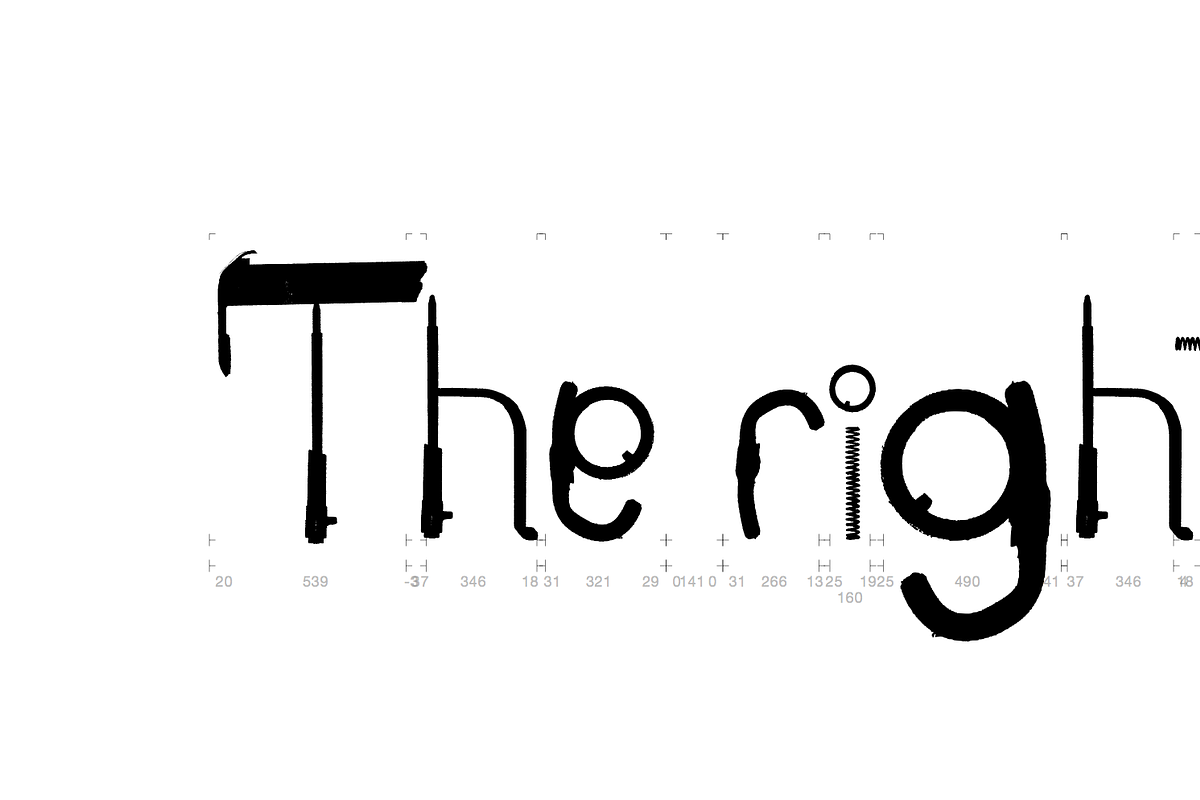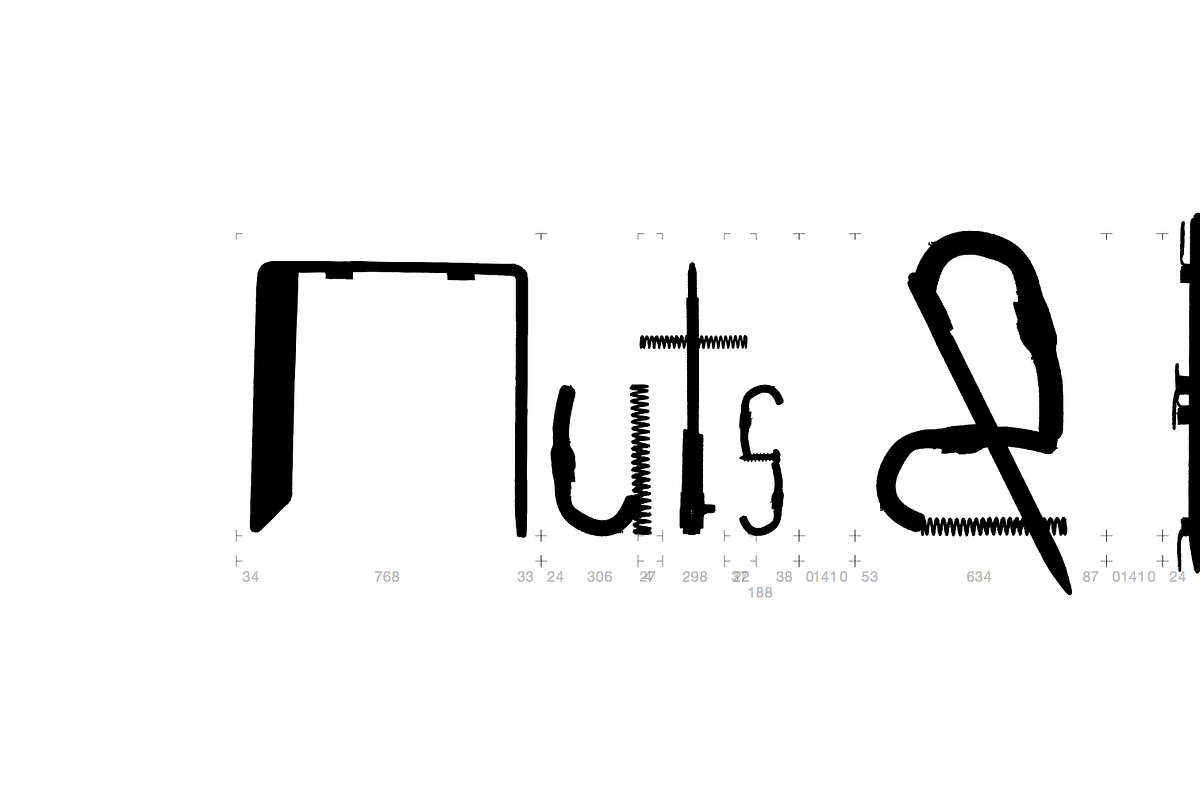
Junk Font
Junk Font by Bird Brain Factory is a font selected for branding, posters, packaging, typography.
Why Junk Font is worth a look
Junk Font by Bird Brain Factory fits naturally into Branding, posters, packaging, typography.